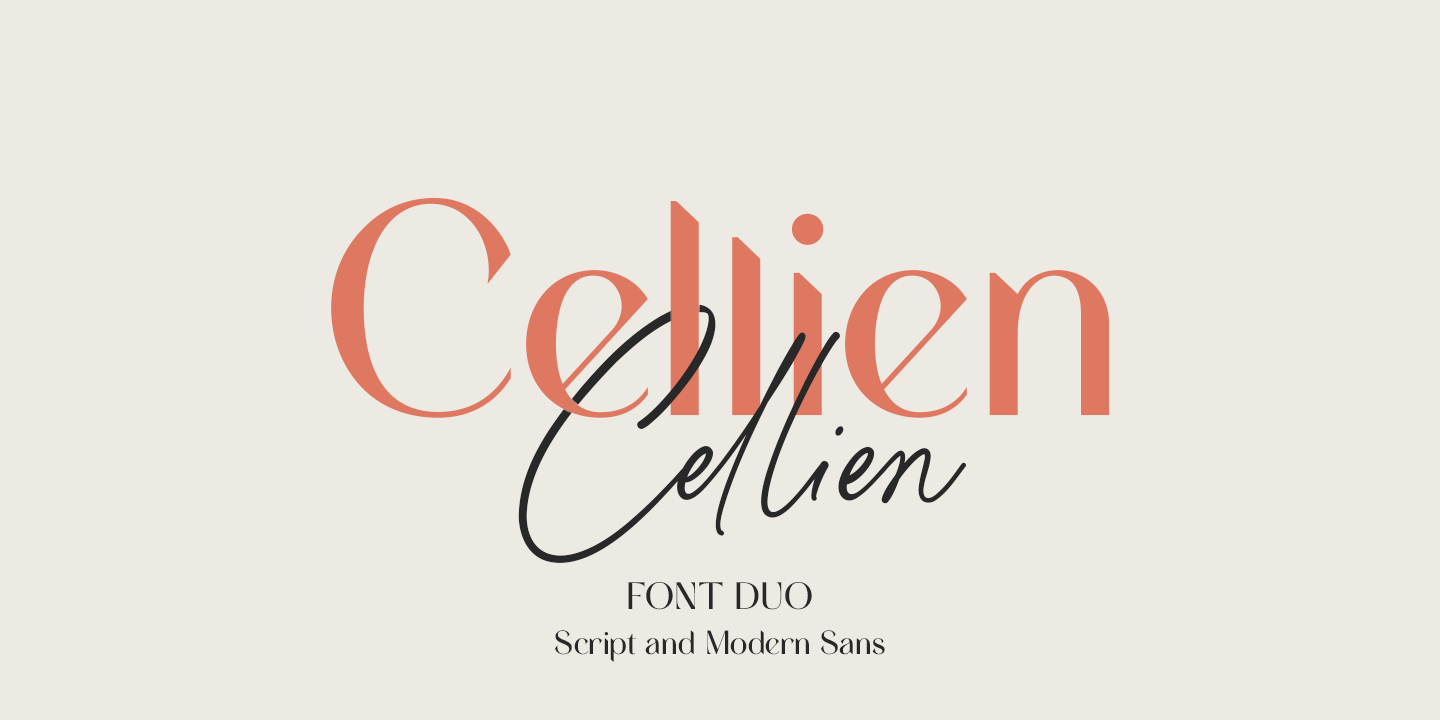
Cellien Font is perfect for contemporary art gallery branding, modern architecture presentations, minimalist fashion labels, sleek tech startup logos, sophisticated interior design portfolios, avant-garde cultural events, cutting-edge creative agency identities, and elegant lifestyle brand marketing.
Cellien Font is exciting because it captures the refined sophistication and contemporary elegance of modern minimalist design, translating the clean precision of architectural excellence and the subtle confidence of understated luxury into typography that embodies innovation, sophistication, and the timeless appeal of effortless refinement. This typeface brings the quiet strength of contemporary design philosophy into visual communications, making every message feel both current and enduringly elegant.
The Cellien Font family includes Ultra Light, Light, Regular, Medium, Bold, and Black weights, along with matching italics and contemporary alternates. Each family member maintains the distinctive modern elegance aesthetic while providing comprehensive coverage for sophisticated branding systems and international applications requiring consistent visual refinement across diverse contemporary design contexts and cultural environments.
Cellien Font distinguishes itself through its exceptional balance of contemporary innovation and timeless sophistication while maintaining crystal-clear readability across all applications. The font's precisely crafted letterforms and refined proportions create an immediate impression of design intelligence and professional excellence, making it particularly effective for creative agencies, architectural firms, and luxury brands seeking to communicate their commitment to both innovation and enduring aesthetic principles.
The creative industry applications of Cellien Font make it exceptionally suitable for professionals working at the intersection of art, design, and contemporary culture. Design studios, contemporary galleries, creative consultancies, and cultural institutions frequently choose this font to establish their sophisticated identity while communicating their expertise in creating cutting-edge solutions that honor both artistic vision and functional excellence in today's design landscape.
Design professionals recognize Cellien Font Free Download for its versatility and contemporary relevance in modern branding applications. The font's refined character and comprehensive weight range ensure consistent brand recognition across various touchpoints from business cards to environmental graphics, making it particularly valuable for comprehensive identity systems requiring both creative distinction and professional reliability in competitive markets.
The luxury lifestyle associations of Cellien Font extend beyond creative industries to encompass broader themes of contemporary living, sophisticated taste, and cultural awareness. Its elegant character and modern appeal naturally complement luxury hospitality, premium consumer products, high-end real estate, and lifestyle brands celebrating the intersection of contemporary design with refined living standards and cultural sophistication.
Contemporary branding increasingly values typography that can convey both creative innovation and professional credibility while appealing to culturally sophisticated audiences seeking authentic quality experiences and thoughtful design solutions. Cellien Font achieves this sophisticated balance through its contemporary elegance and timeless principles, making it suitable for both established cultural institutions and emerging creative enterprises.